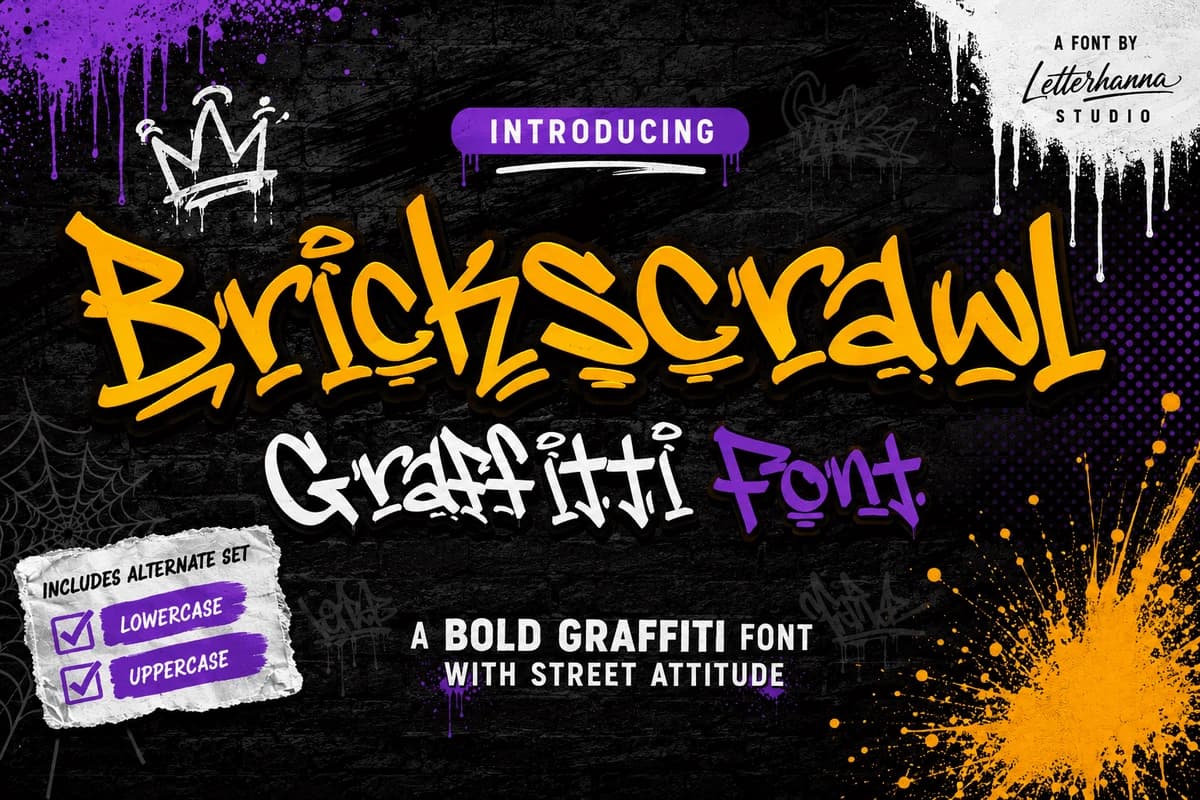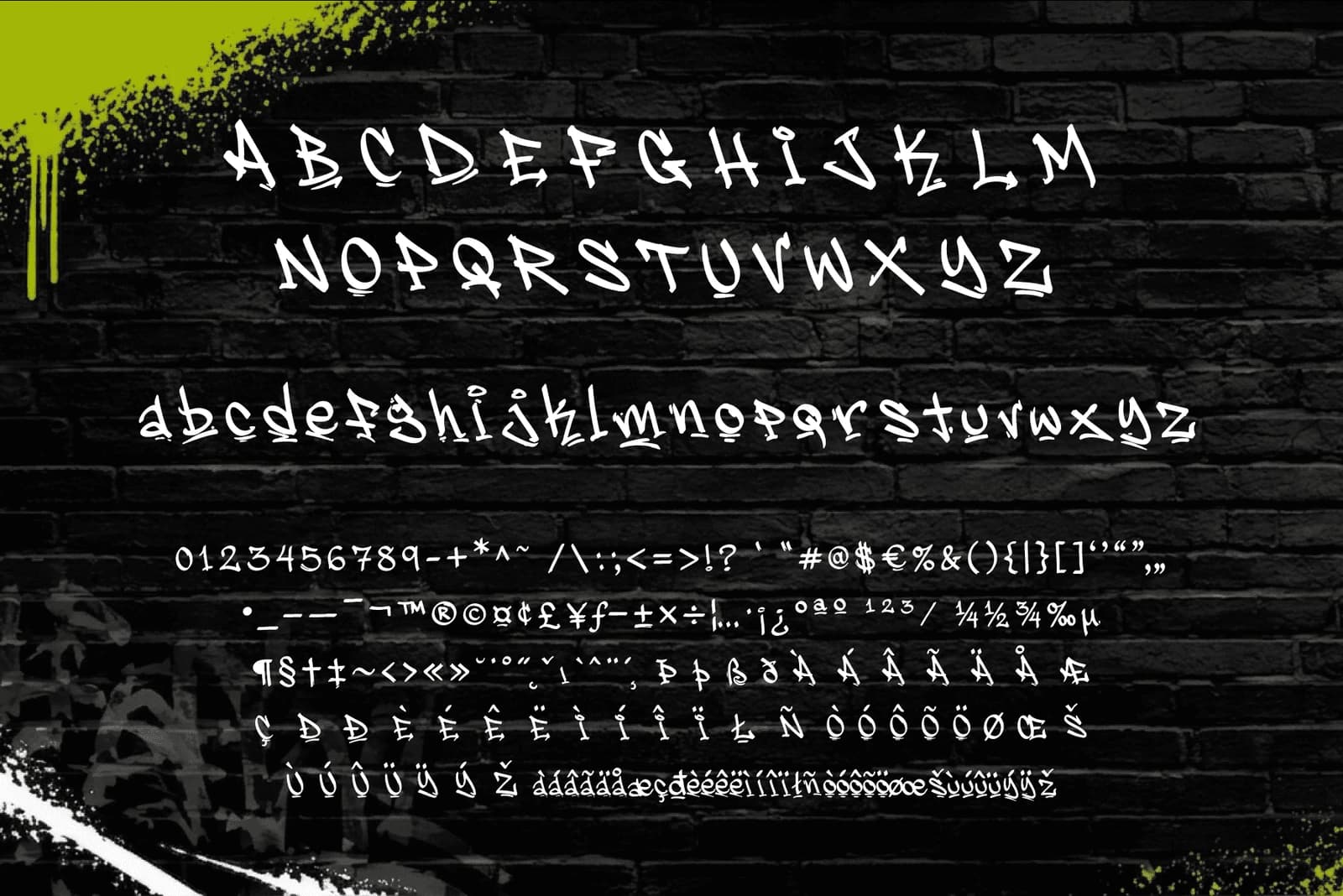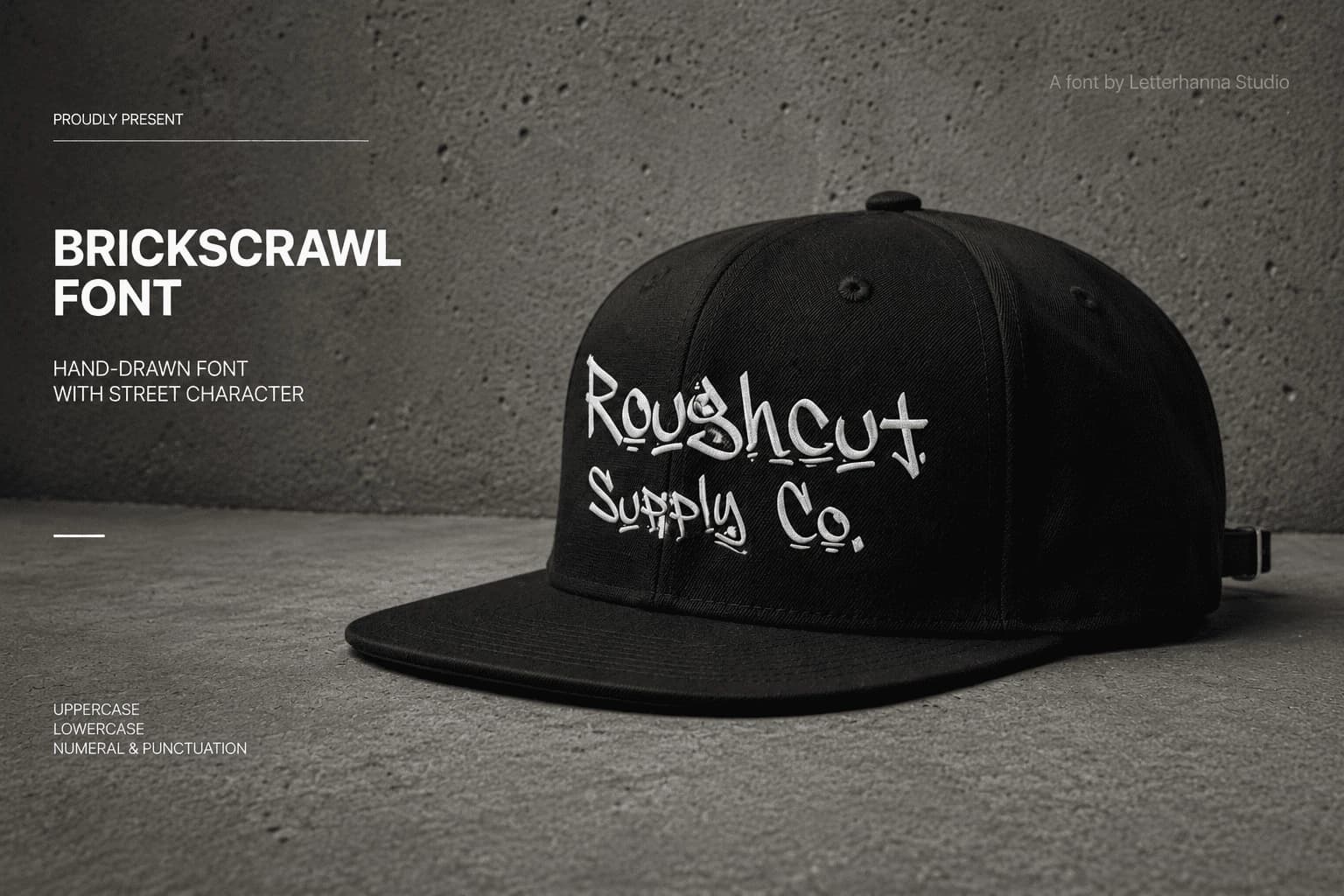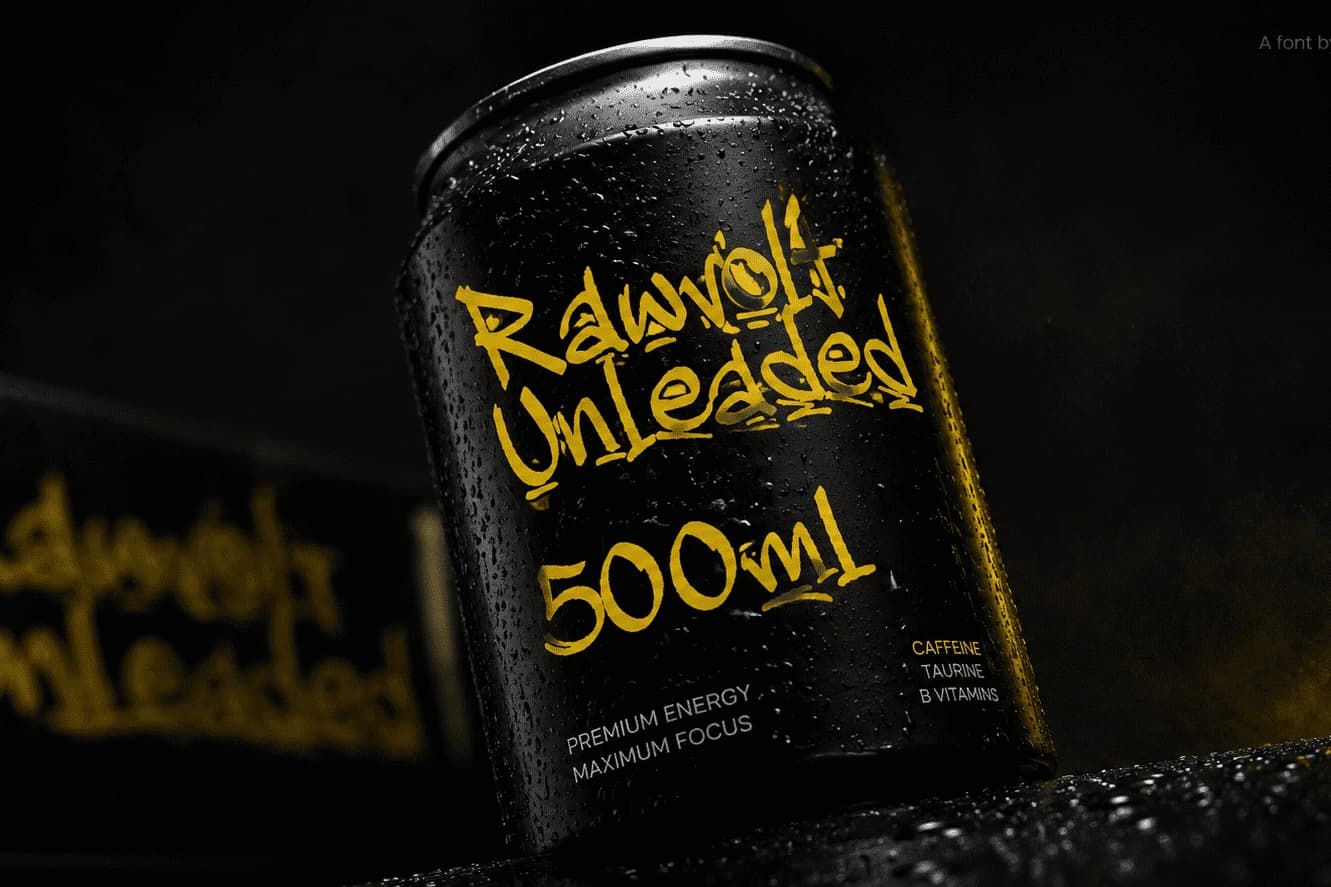
Brickscrawl Font
Brickscrawl is a bold graffiti-inspired display font that captures the raw energy of street art and urban culture.
Brickscrawl is a bold graffiti-inspired display font that captures the raw energy of street art and urban culture. Featuring hand-drawn letterforms with an authentic scrawled look, this typeface is perfect for posters, streetwear branding, album covers, skate designs, packaging, social media graphics, and any project that needs a rebellious and expressive touch. Make your designs stand out with typography that speaks loud and proud.